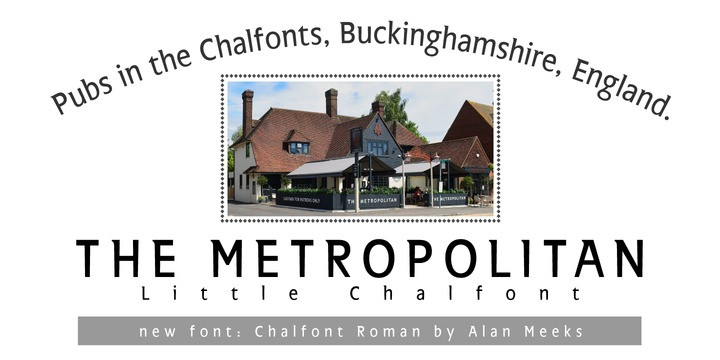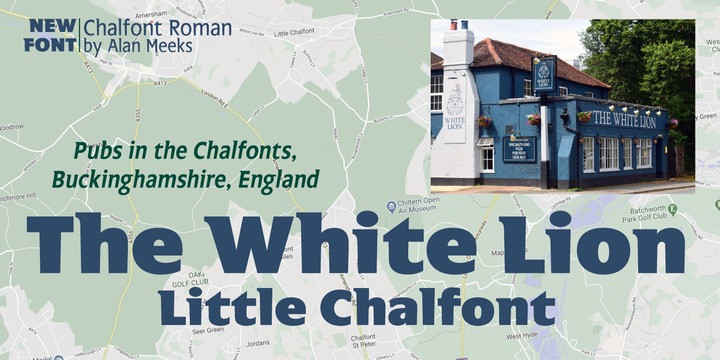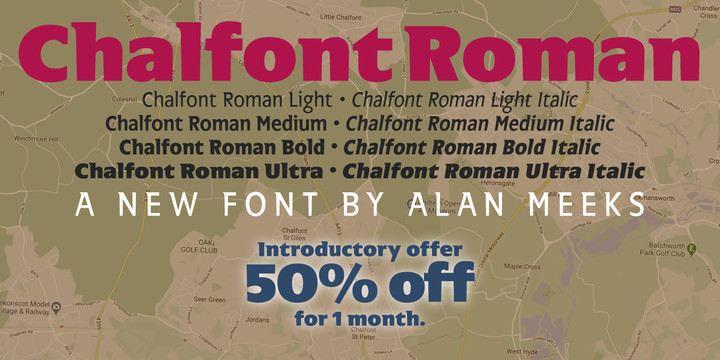
Chalfont Roman Font
Some years ago I designed Chalfont as a sans face. All the characters have a top heavy look when viewed straight on, however, as most type is read at an angle with the top further away than the bottom, this top heavy look is diminished. Chalfont Roman, although re-drawn with some alterations, is still basically the same face but with a top left serif giving more emphasis to the top heavy characteristics. I have also added a set of non ranging numerals.